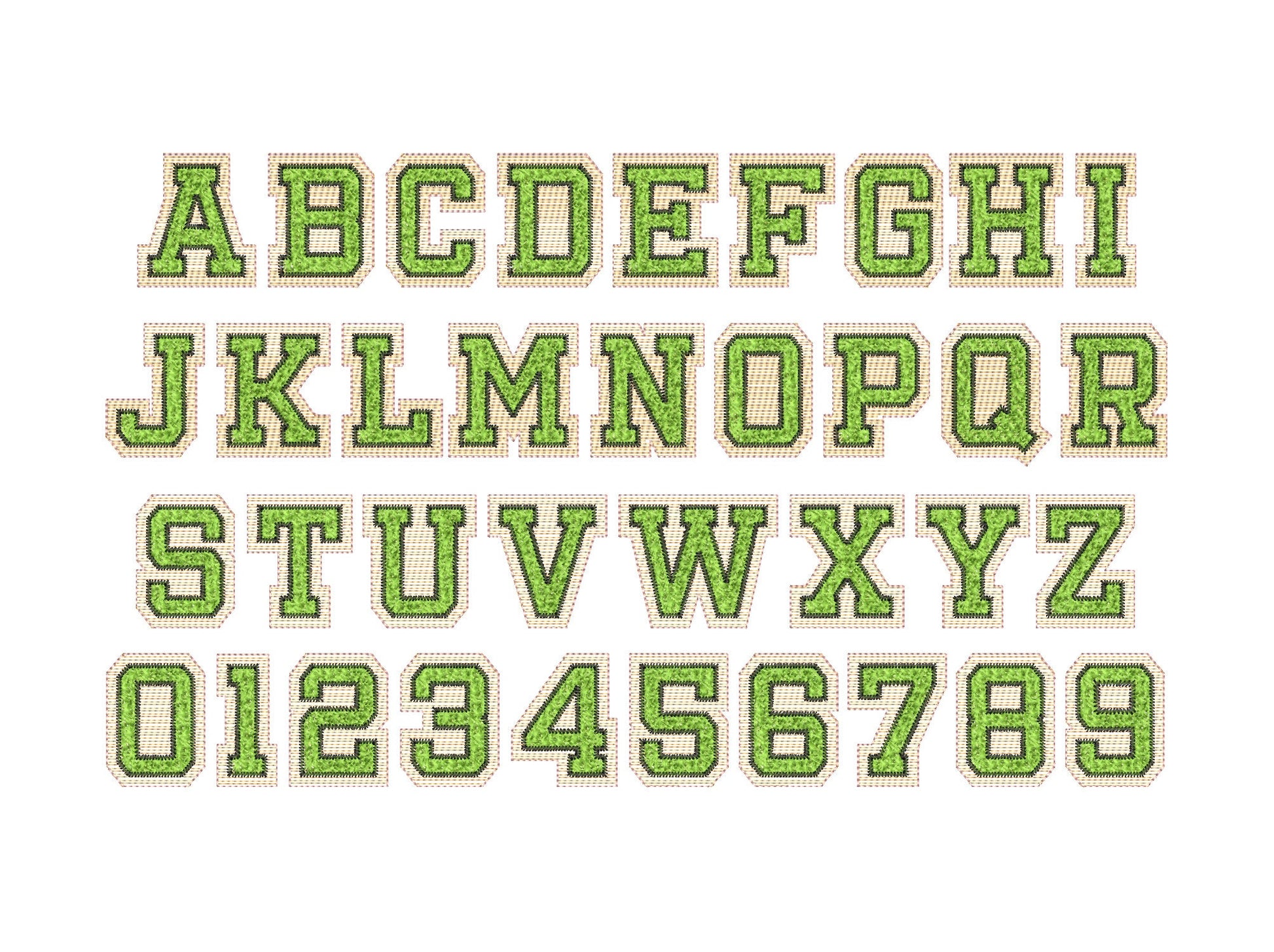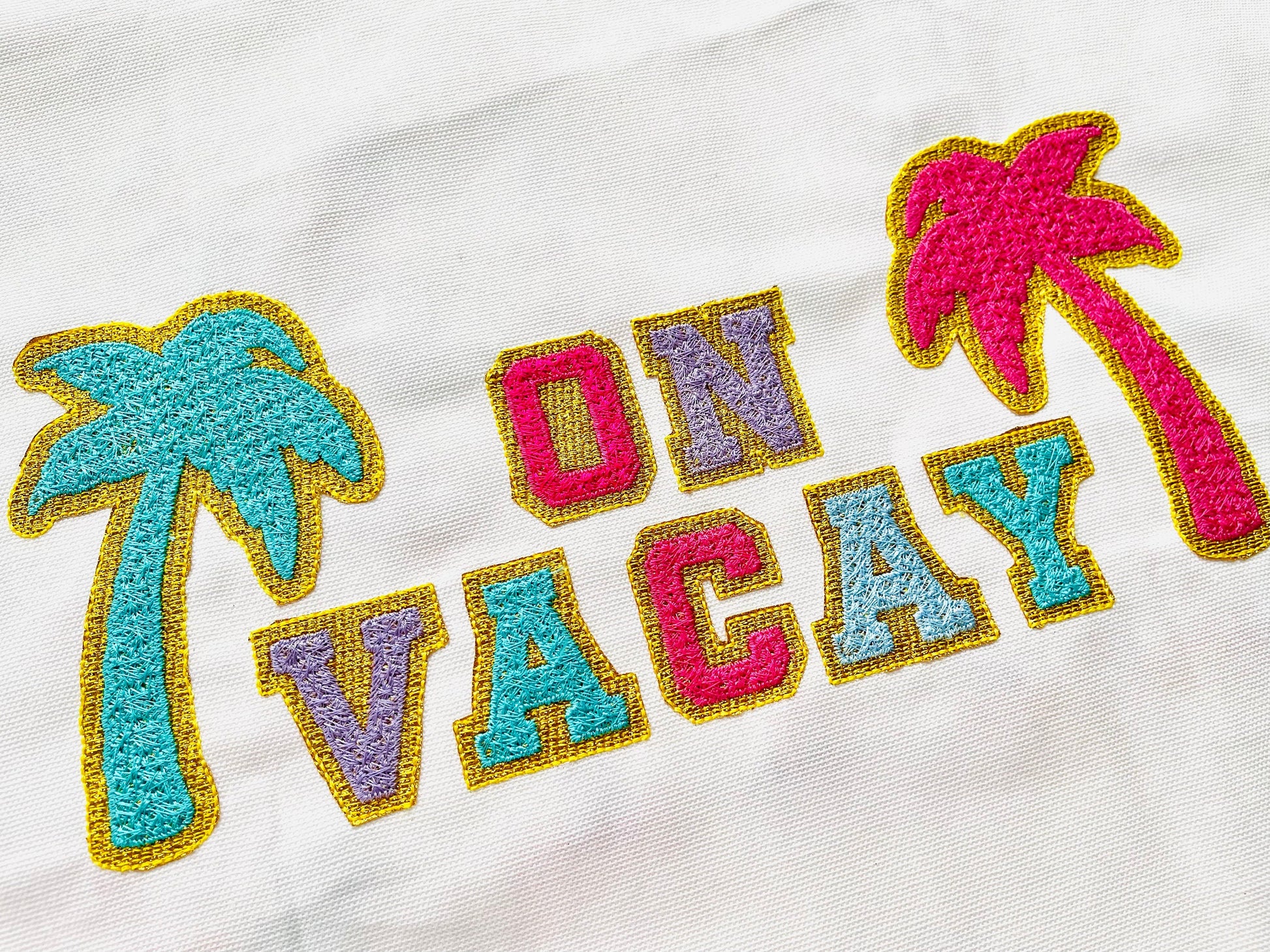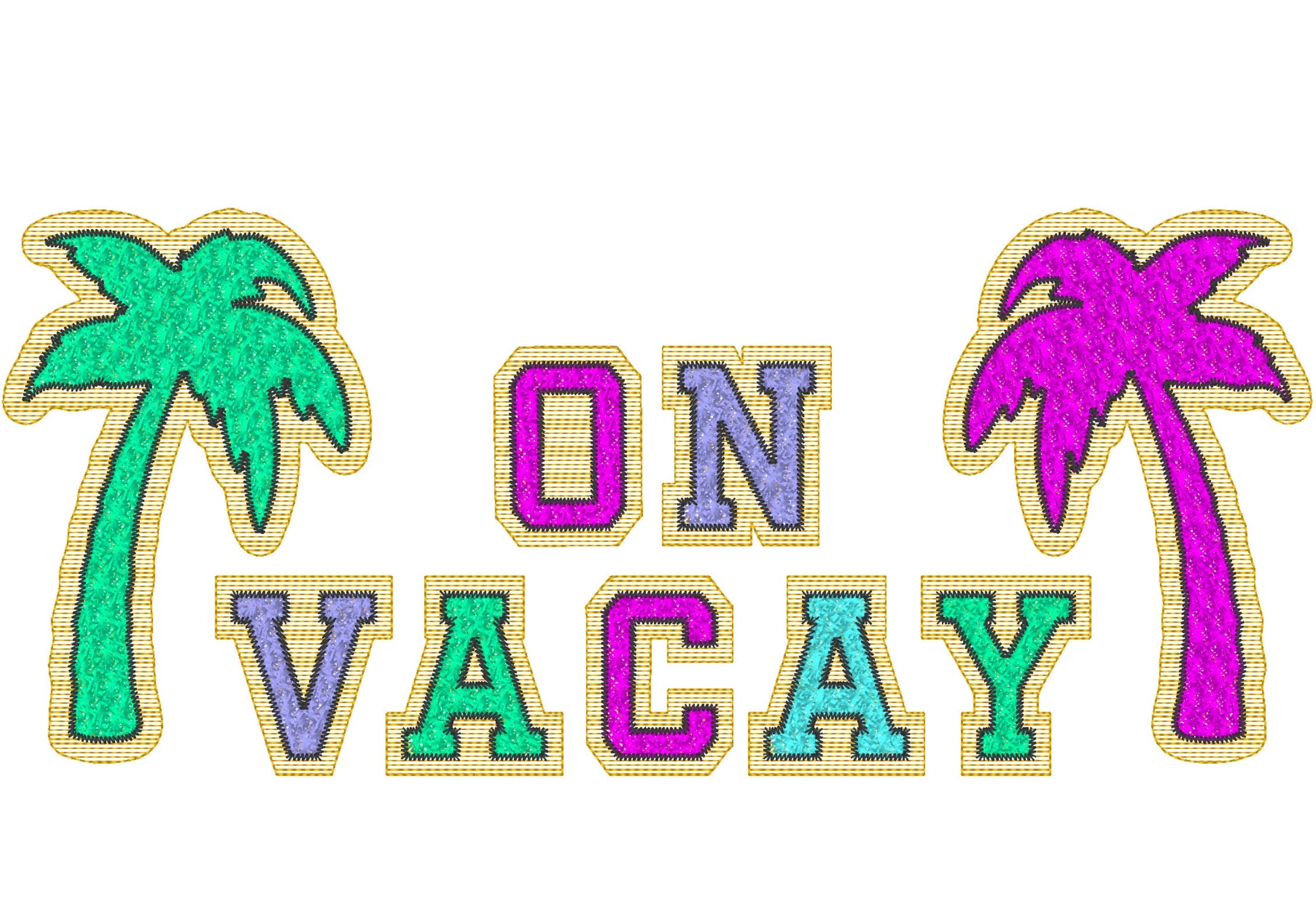
Or click to open the linkA mini faux chenille varsity font for glitter vinyl, with a bonus palm tree. Great for team names and summer shirts.
Stitch over glitter vinyl, tear or trim the edges, then iron it; it is safe to wash. Letters and numbers in six sizes: 1, 1.3, 1.5, 2, 2.5 and 3 inches, and the palm tree in 4 and 5 inches.